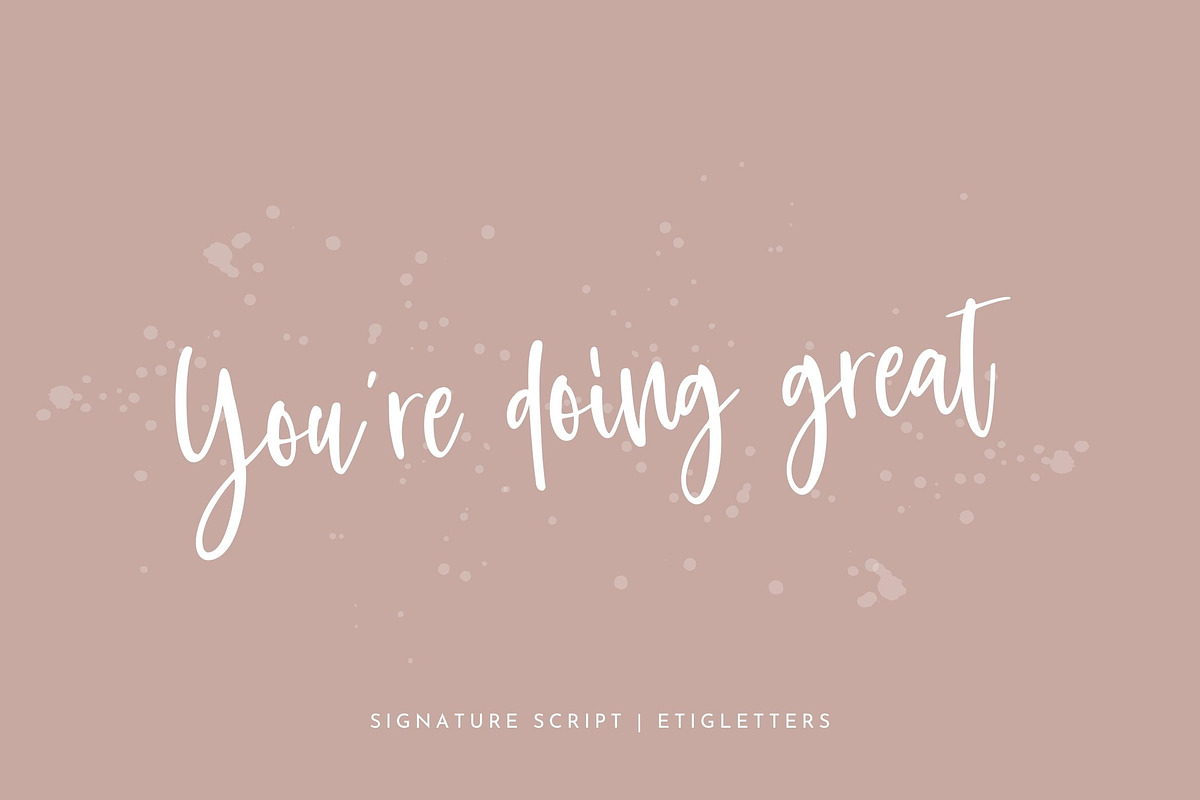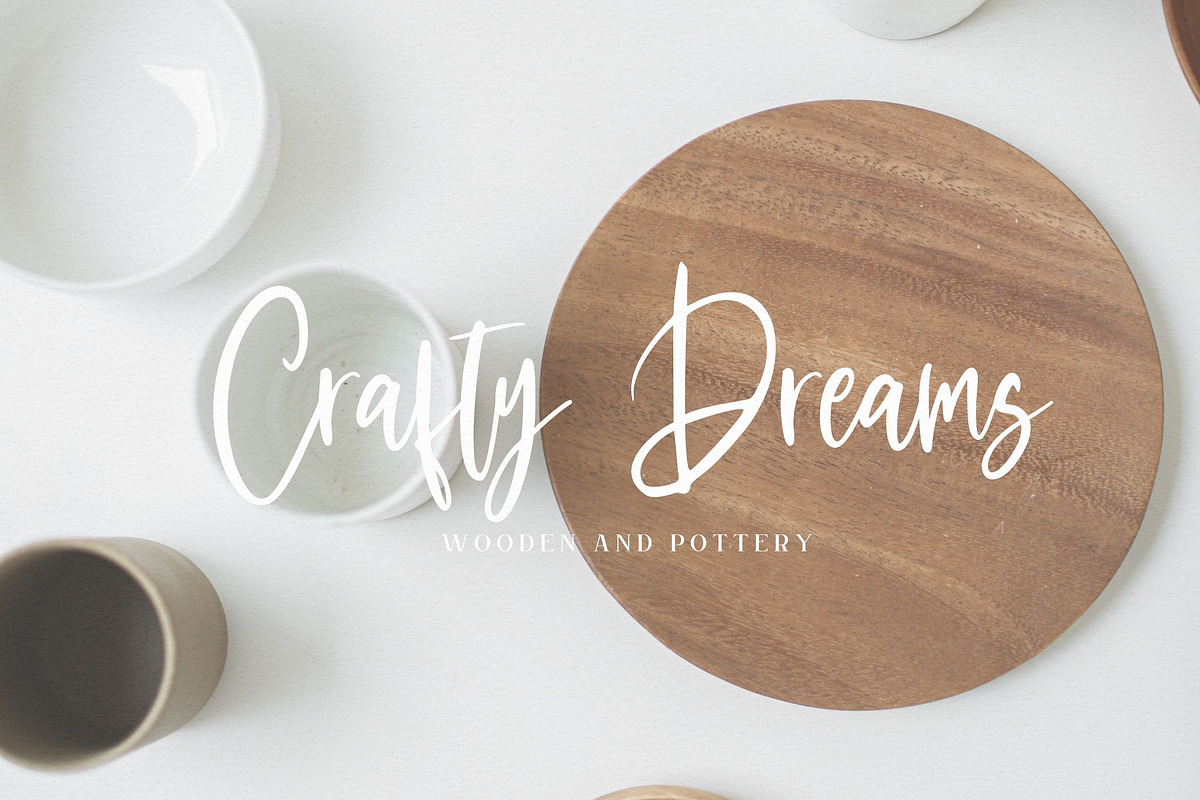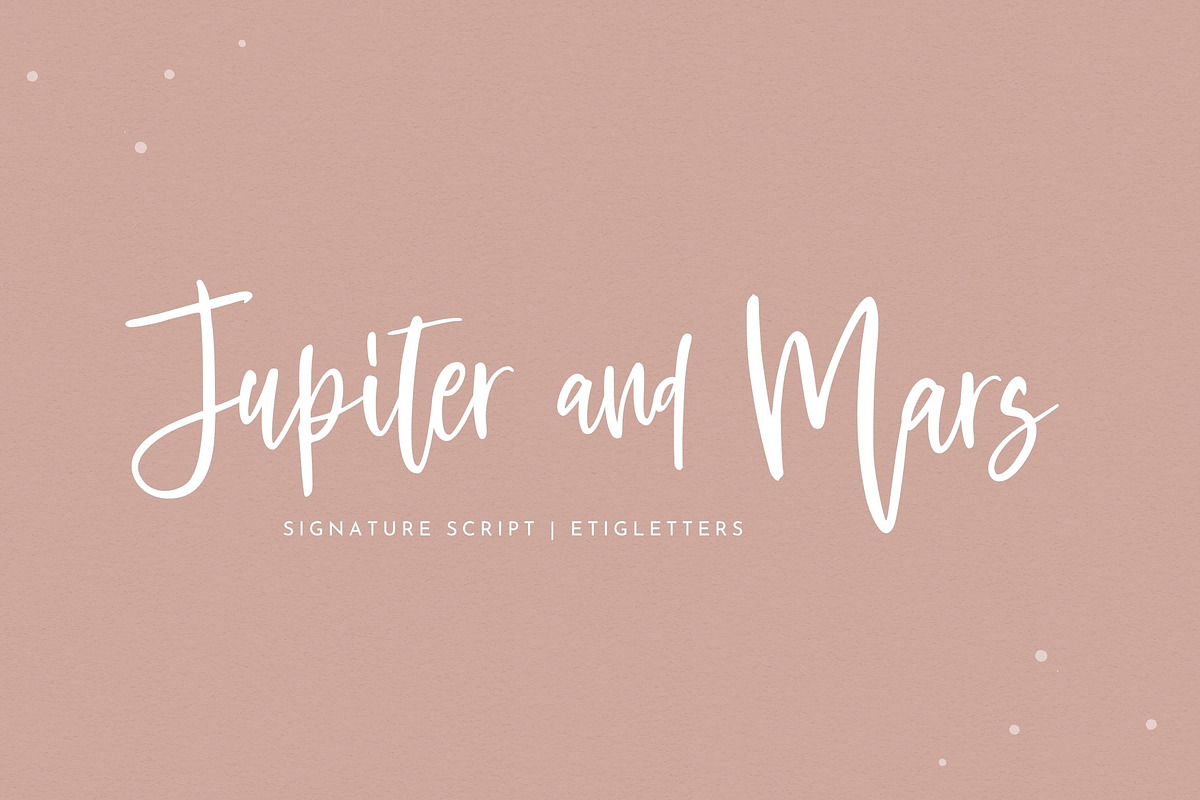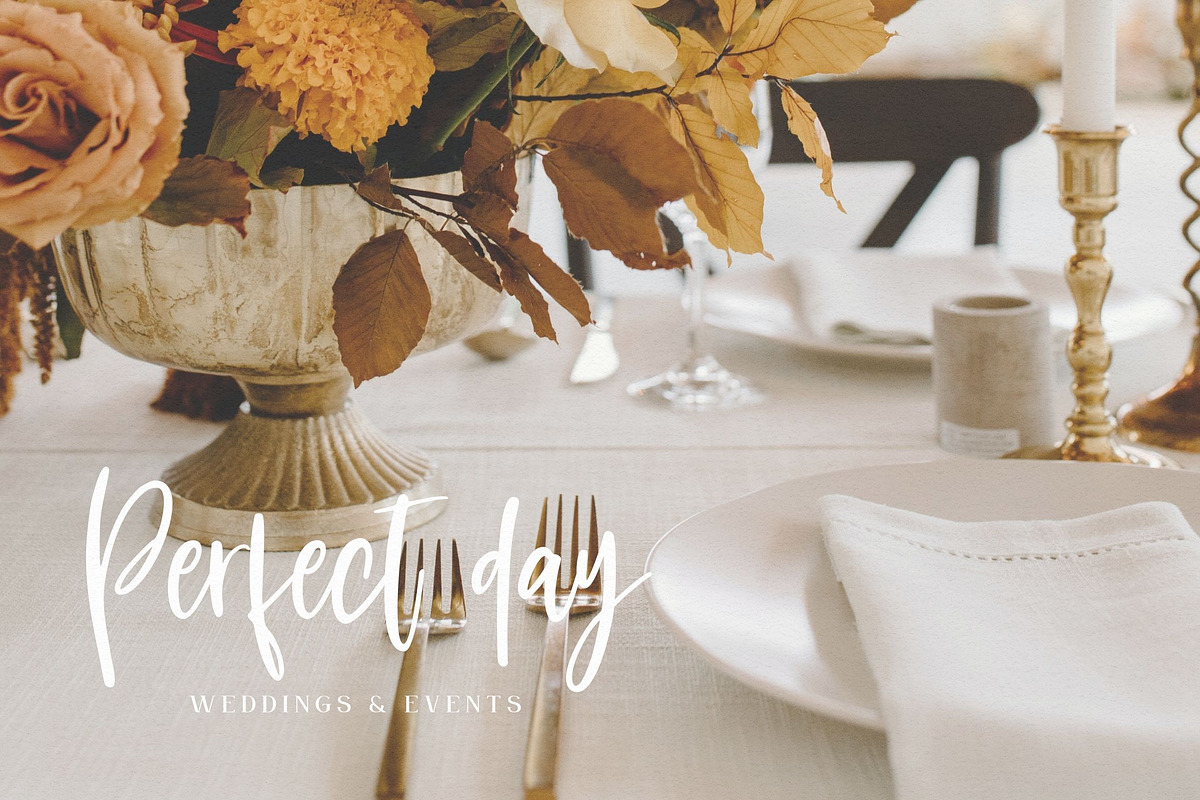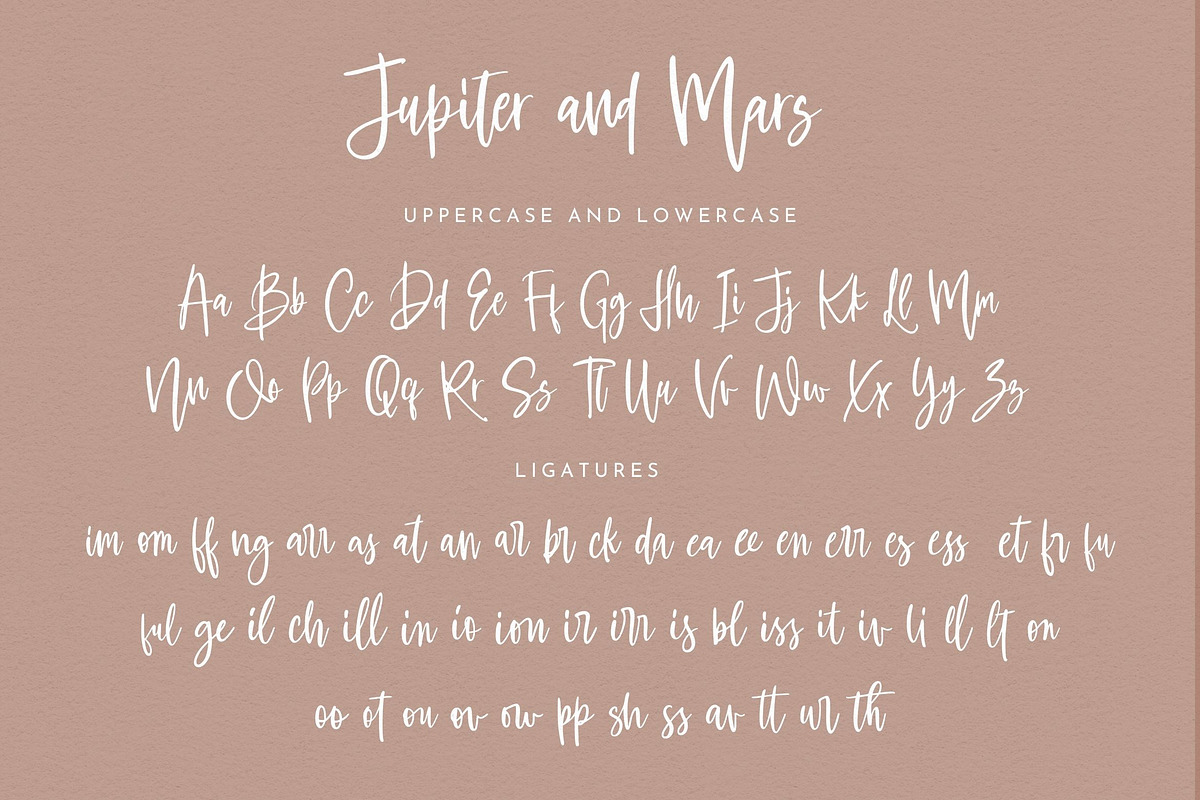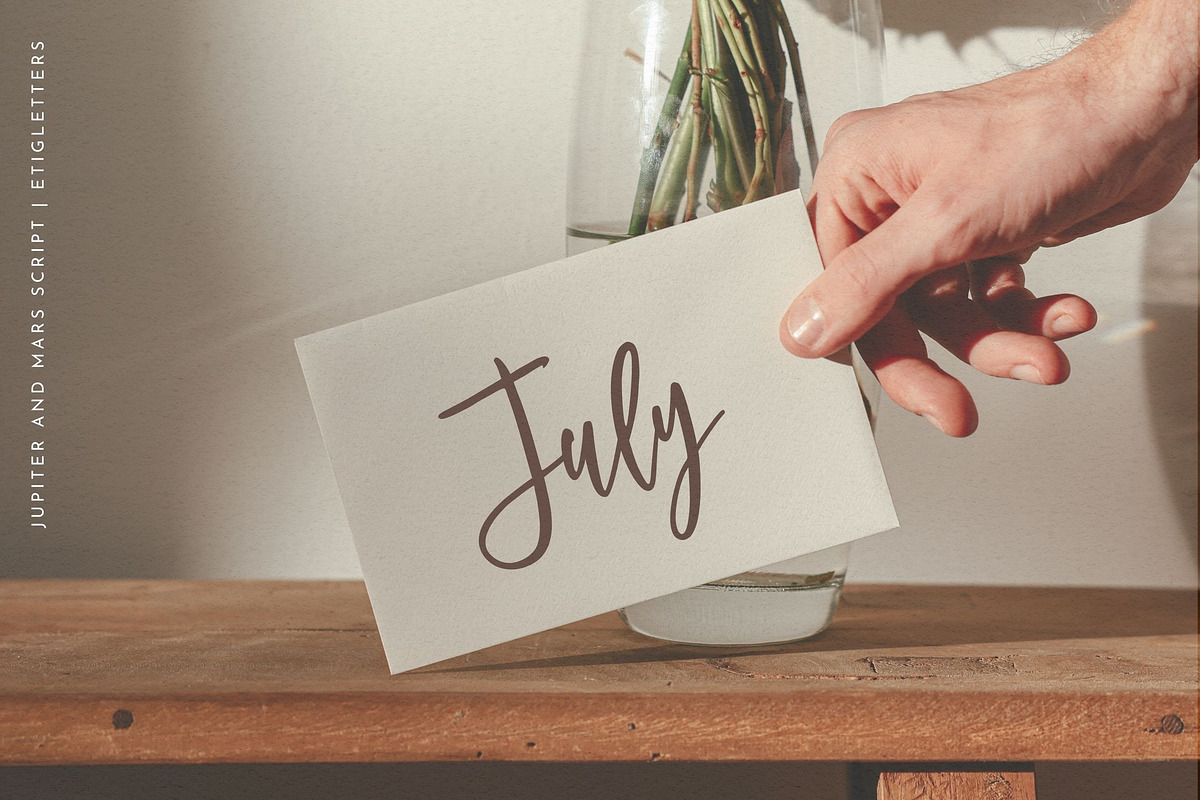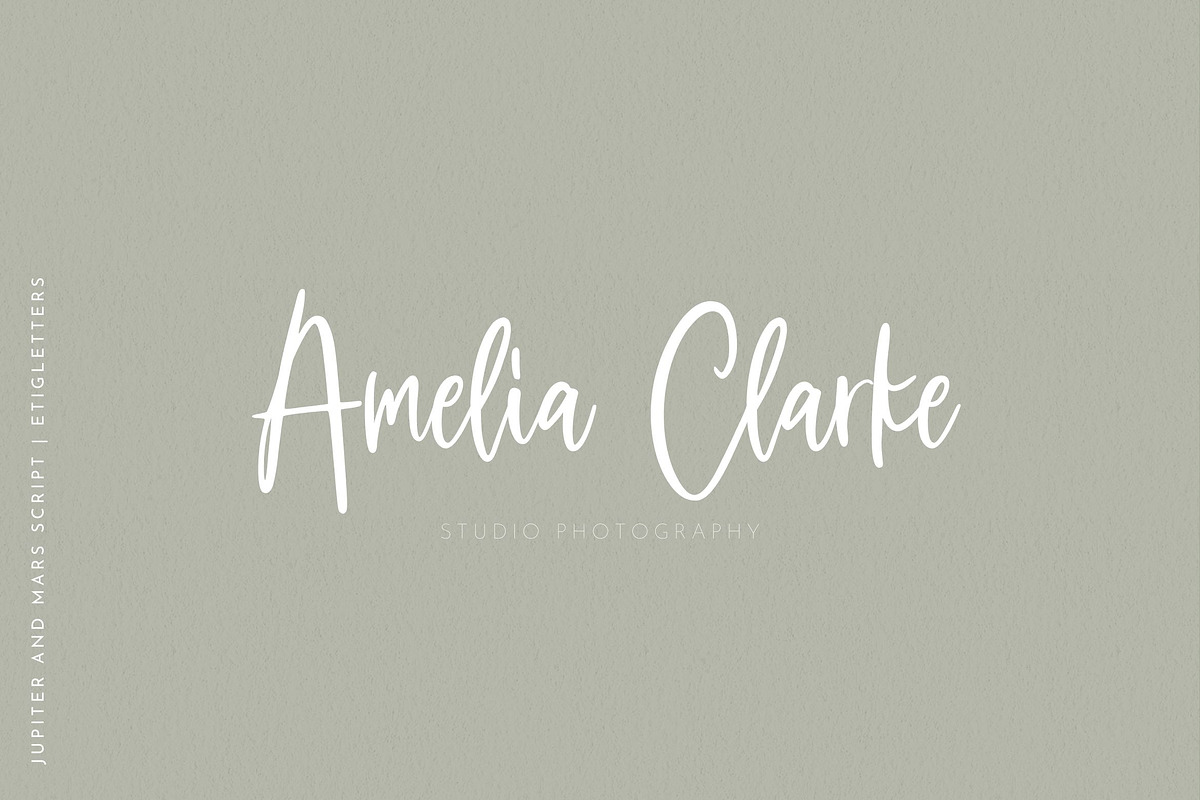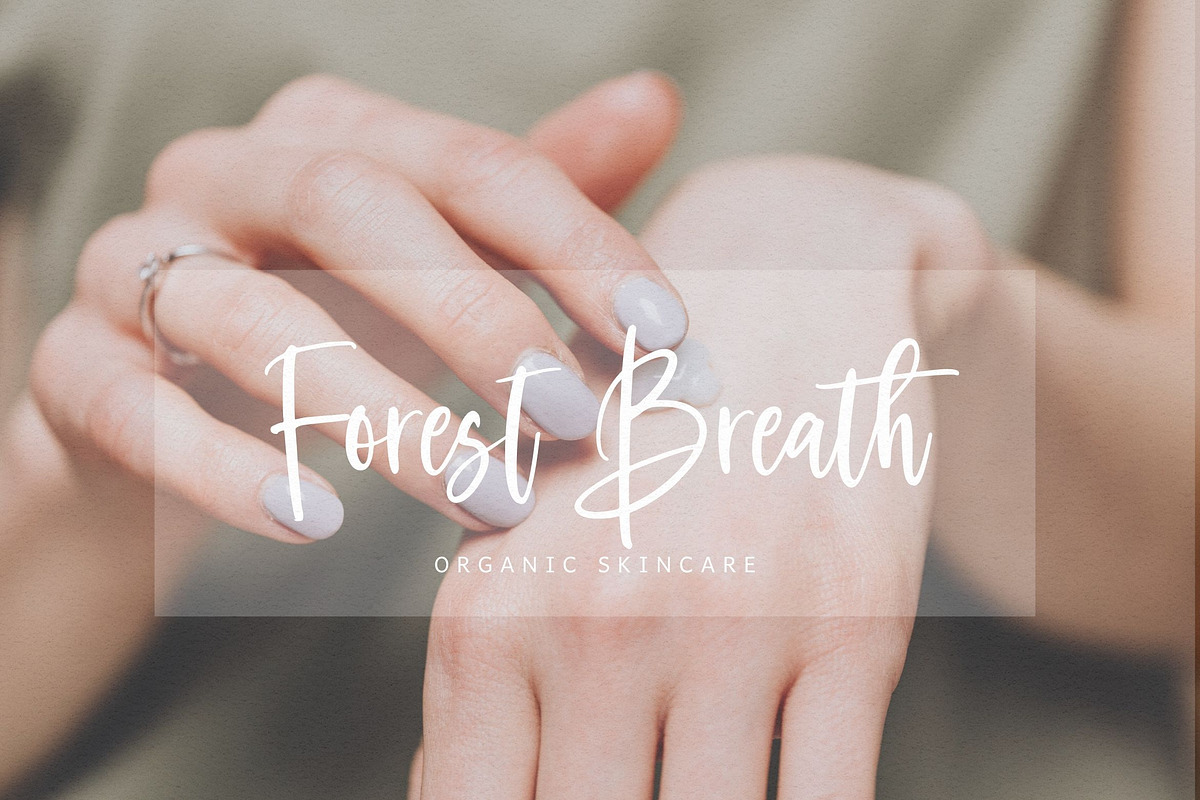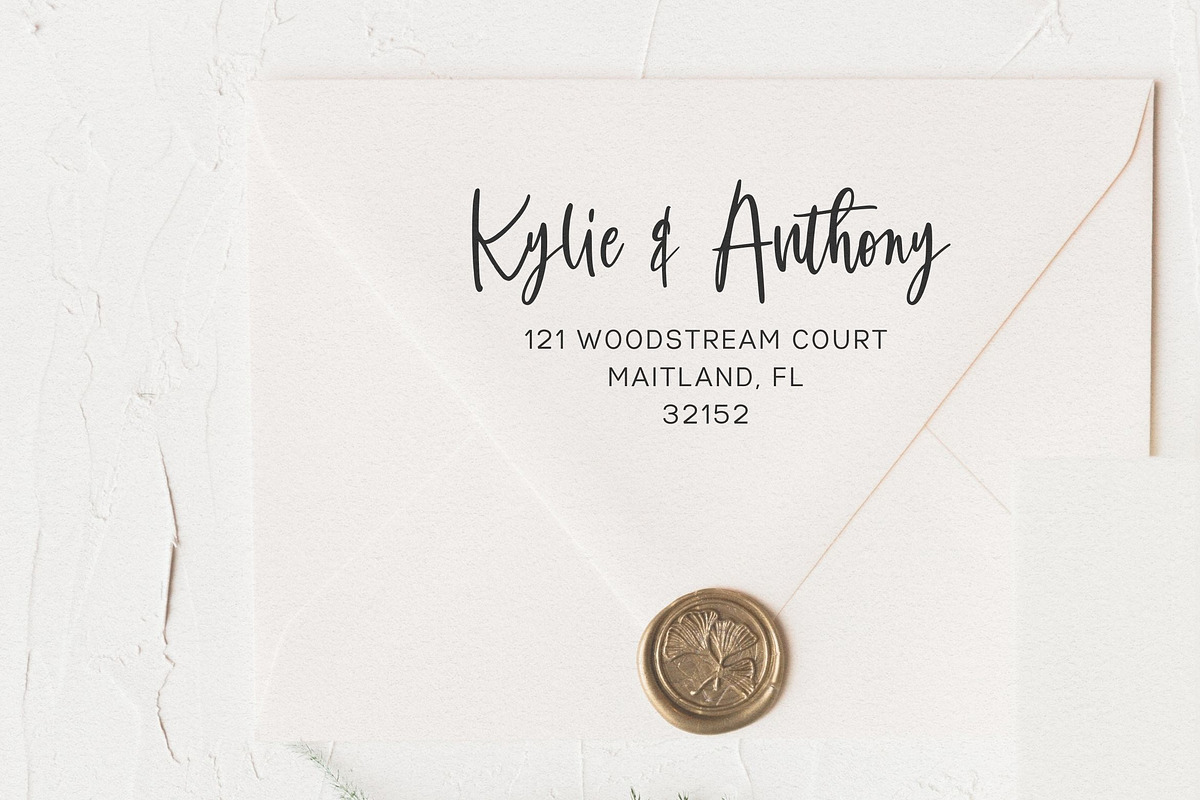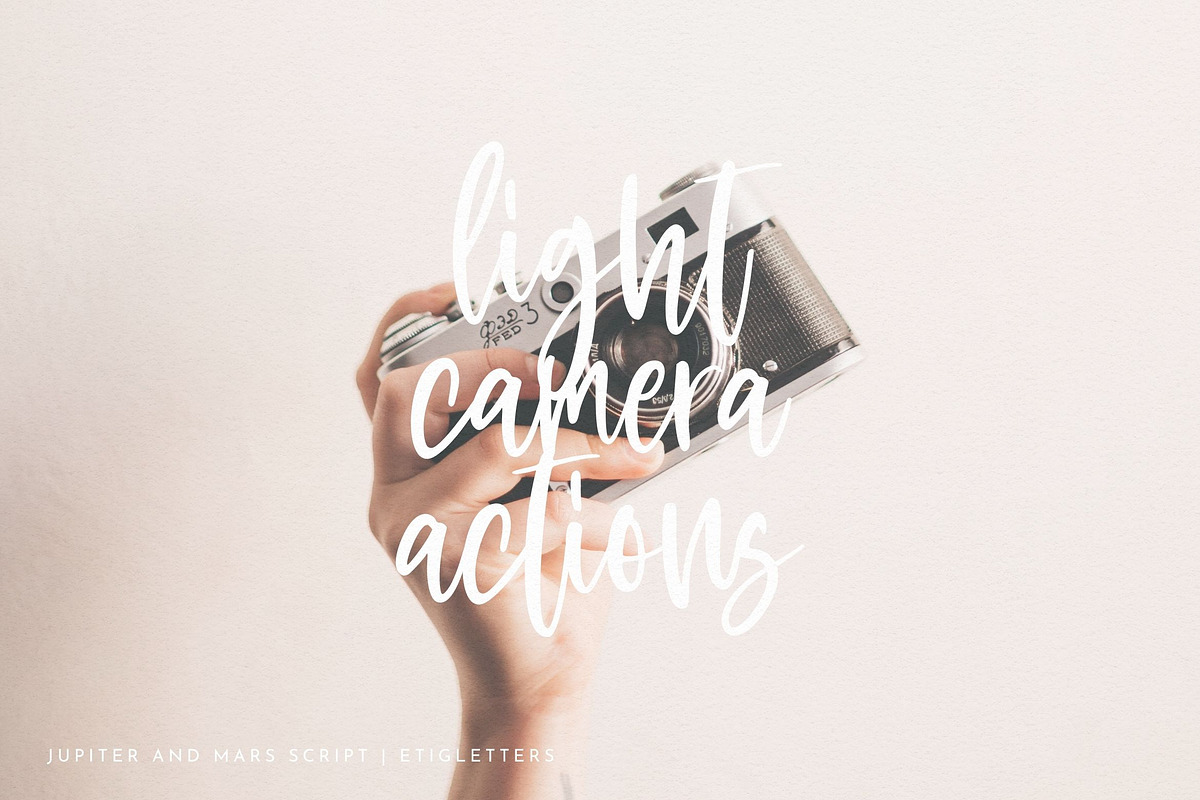
Jupiter and Mars Script Font
Introducing, Jupiter and Mars - a charming new handwritten font natural inky flow. Jupiter and Mars will be perfect for wedding invitation, greeting cards, logos, posters or unique touch to your projects and branding.
This font also suitable to be combined with sans serif that will make your design more perfect. Also already PUA Encoded!